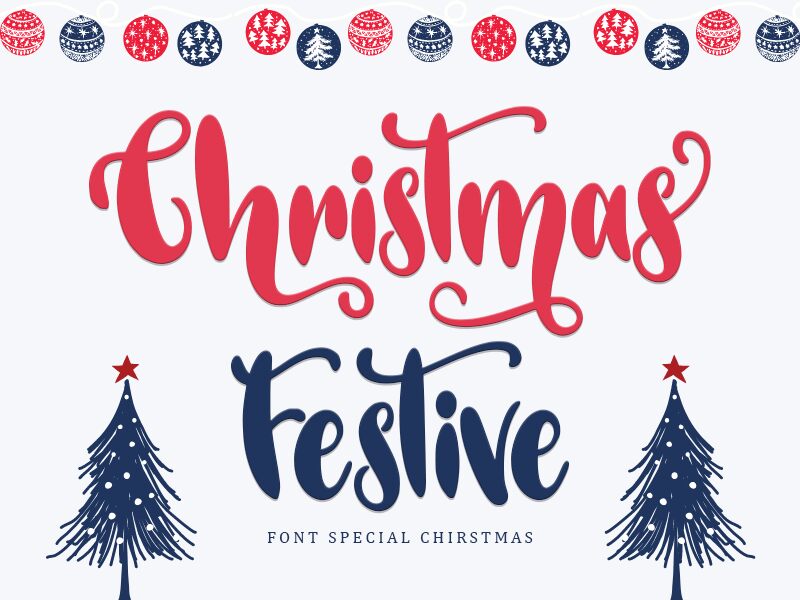
Christmas Festive, crafted by the talented Alif Ryan Zulfikar, is a bold brush-style font that exudes charm and joy. This font captures the essence of holiday cheer with its lively strokes and playful curves, making it perfect for festive designs. Its bold weight ensures strong visual impact, enhancing readability while adding a whimsical touch.
Ideal for holiday cards, festive posters, or cheerful branding materials, Christmas Festive brings a warmth and character to your creations. The intricate brush strokes lend an authentic hand-drawn feel, inviting warm sentiments and joyful celebrations. Let Christmas Festive adorn your holiday-themed projects with its delightful exuberance!